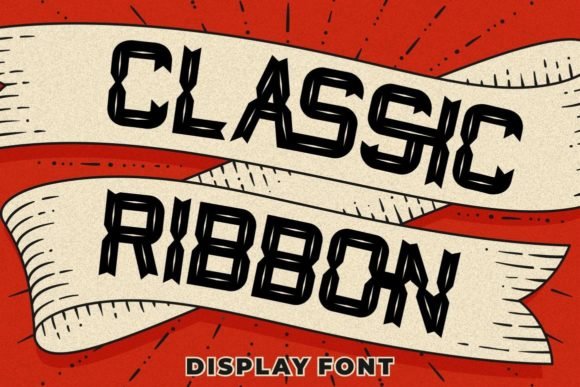
Get Ready to Groove with the Classic Ribbon Font
Remember that moment when you stumbled upon an old vinyl record in a thrift store, and the vintage music posters caught your eye? The colors, the typography, the overall vibe – it was like a time capsule of creativity. That’s exactly what inspired the creation of the Classic Ribbon Font, a display typeface that’s a love letter to classic music posters, carnival typography, and tattoo designs.
This beautiful inline style font is more than just a pretty face; it’s a versatile tool for designers looking to add a touch of nostalgia and elegance to their projects. From music promotion and film titles to logos and wedding invitations, the Classic Ribbon Font is the perfect companion for any creative endeavor. With its PUA encoding, you can easily access all the glyphs and swashes, making it a valuable addition to your design arsenal.
Key Features of Classic Ribbon Font
- Font Style: Classic Ribbon Font is a unique, hand-drawn font that resembles a ribbon or a banner, giving it a distinctive and elegant appearance.
- Unique Characteristics: The font’s unique design and hand-drawn style give it a personal touch, making it ideal for creative projects, such as wedding invitations, greeting cards, and other special occasion materials.
Designer Review: Classic Ribbon Font
First impressions of the Classic Ribbon Font are quite charming. The ✨ whimsical and playful feel of this font makes it perfect for adding a touch of elegance and sophistication to any design project. The font’s classic design is reminiscent of traditional ribbon cutting ceremonies, adding a sense of nostalgia and romance to any text.
- ✨ Unique and elegant design
- ✨ Perfect for adding a touch of whimsy to designs
- ✨ Great for wedding invitations, baby announcements, and other special occasion designs
- ⚠️ Limited character set and font sizes may affect readability
- ⚠️ May not be suitable for body text due to its ornate design
- ⚠️ May not be compatible with all operating systems or devices
Overall, the Classic Ribbon Font is a beautiful and unique addition to any design project. While it may have some limitations, its charm and elegance make it perfect for special occasion designs and adding a touch of whimsy to any text.
Classic Ribbon Font is a versatile font that can be used for various purposes, such as:
2. Vintage-themed designs and graphics.
3. Branding and logo designs.
1. Pair Classic Ribbon Font with other vintage-inspired fonts for a unique look.
2. Experiment with different font sizes and colors to add visual interest.
3. Use Classic Ribbon Font in combination with graphics and illustrations to create a cohesive design.
Alternatives to Classic Ribbon Font for Designers
Great Vibes is a modern, elegant script font that works well for headings, logos, and other design elements where a touch of sophistication is needed.
Compared to Classic Ribbon Font, Great Vibes has a more refined and polished look, making it suitable for high-end branding and packaging design.
Pacifico is a beautiful, cursive script font that exudes a sense of relaxation and calmness, making it perfect for designs that require a soothing atmosphere.
Unlike Classic Ribbon Font, Pacifico has a more fluid and organic feel, making it ideal for travel and wellness-related designs, as well as event invitations and stationery.
Dancing Script is a lively and playful script font that adds a touch of whimsy to designs, making it suitable for creative and artistic projects.
While Classic Ribbon Font has a more traditional and elegant feel, Dancing Script has a more dynamic and expressive quality, making it perfect for designs that require a sense of energy and movement.